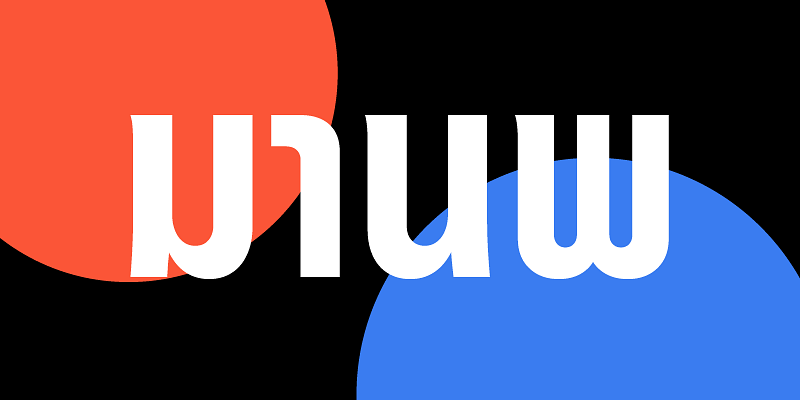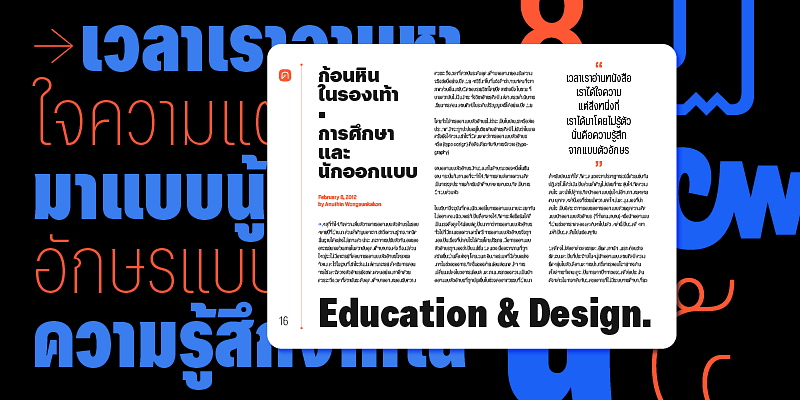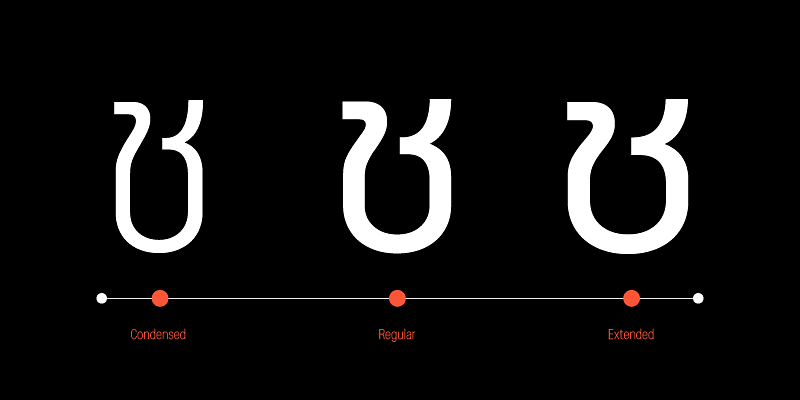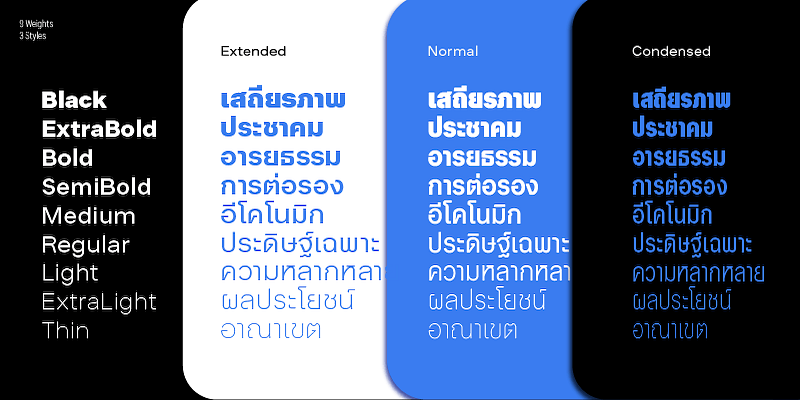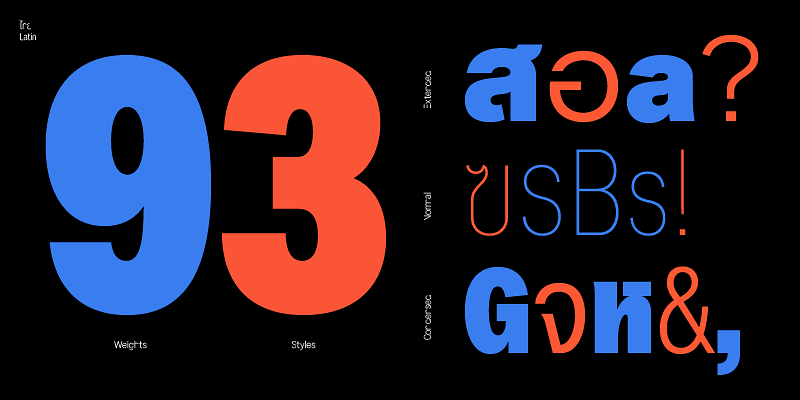
Manop is a typeface that Cadson Demak revived from LC Manop (Light Condensed Manop) from just a single weight to a Variable font (27 Styles). Manop is one of Manop Srisomporn’s most memorable typeface. Manop’s design was based off of distinctive characteristics from its predecessor. Manop also introduced alternate characters for users to pick and choose from in every weight. A system was also introduced to Manop to better organize the terminal endings. The designer has kept the original condensed proportion, along with its concealed loops which have been tweaked for usage on digital platforms.